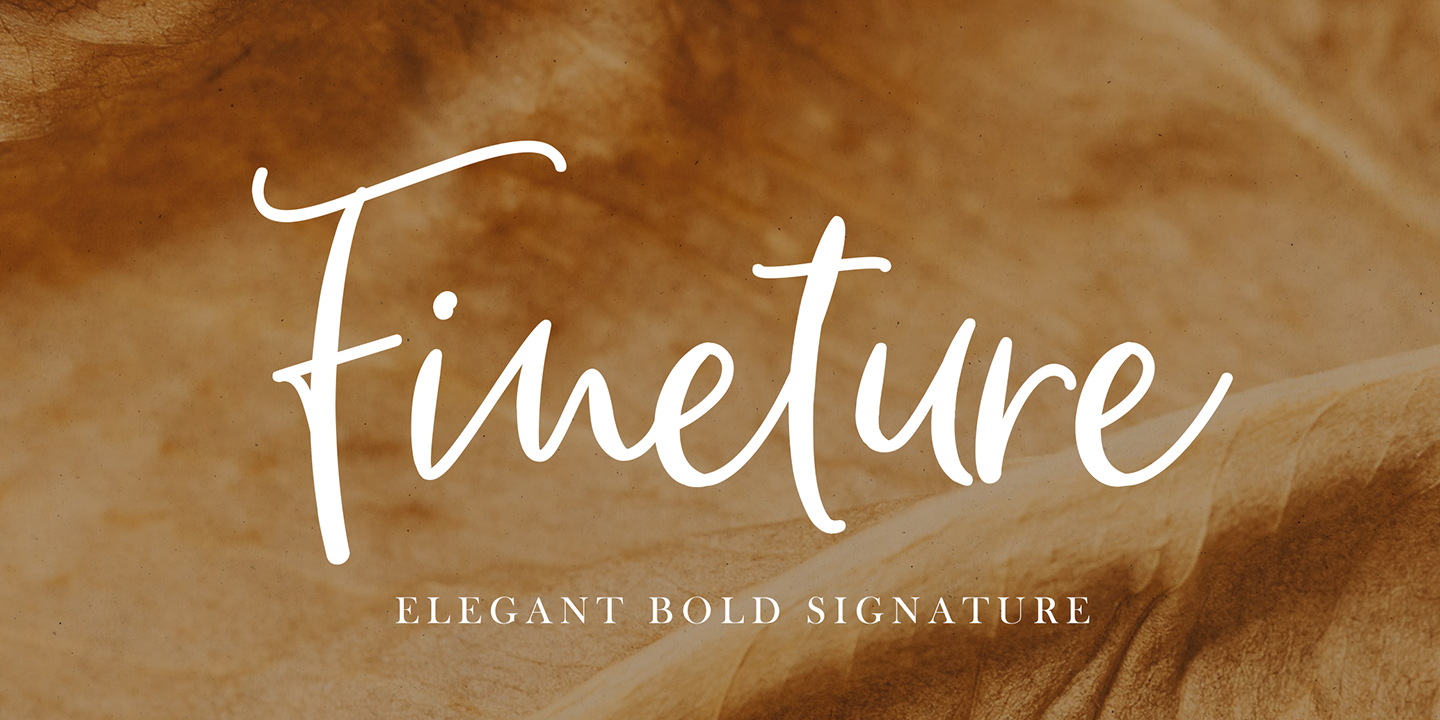
Fineture Font is perfect for luxury brand logos, high-end fashion magazines, premium product packaging, elegant corporate presentations, sophisticated restaurant menus, upscale hotel branding, fine art gallery signage, luxury real estate marketing, exclusive event invitations, premium jewelry advertising, high-quality architectural firms, and refined lifestyle publications.
What makes Fineture Font so exciting is its exquisite balance of refinement and contemporary sophistication that embodies the essence of luxury and premium quality. This exceptional typeface features meticulously crafted letterforms with elegant proportions, subtle sophisticated details, and flawless geometry that communicate exclusivity, prestige, and uncompromising quality, making it perfect for brands that want to position themselves in the luxury market segment.
The Fineture Font family typically includes multiple weight variations from light to bold, with extended character sets, premium ligatures, and carefully designed spacing that ensures optimal readability and visual impact across all high-end design applications.
Whether you're creating branding for luxury services or designing materials for premium products, Fineture Font Free Download delivers the ultimate typography solution for projects demanding sophisticated elegance and exclusivity. This versatile font seamlessly combines timeless refinement with modern precision, making it an indispensable asset for designers working on high-end projects that need to convey luxury, sophistication, and the highest standards of quality and craftsmanship.